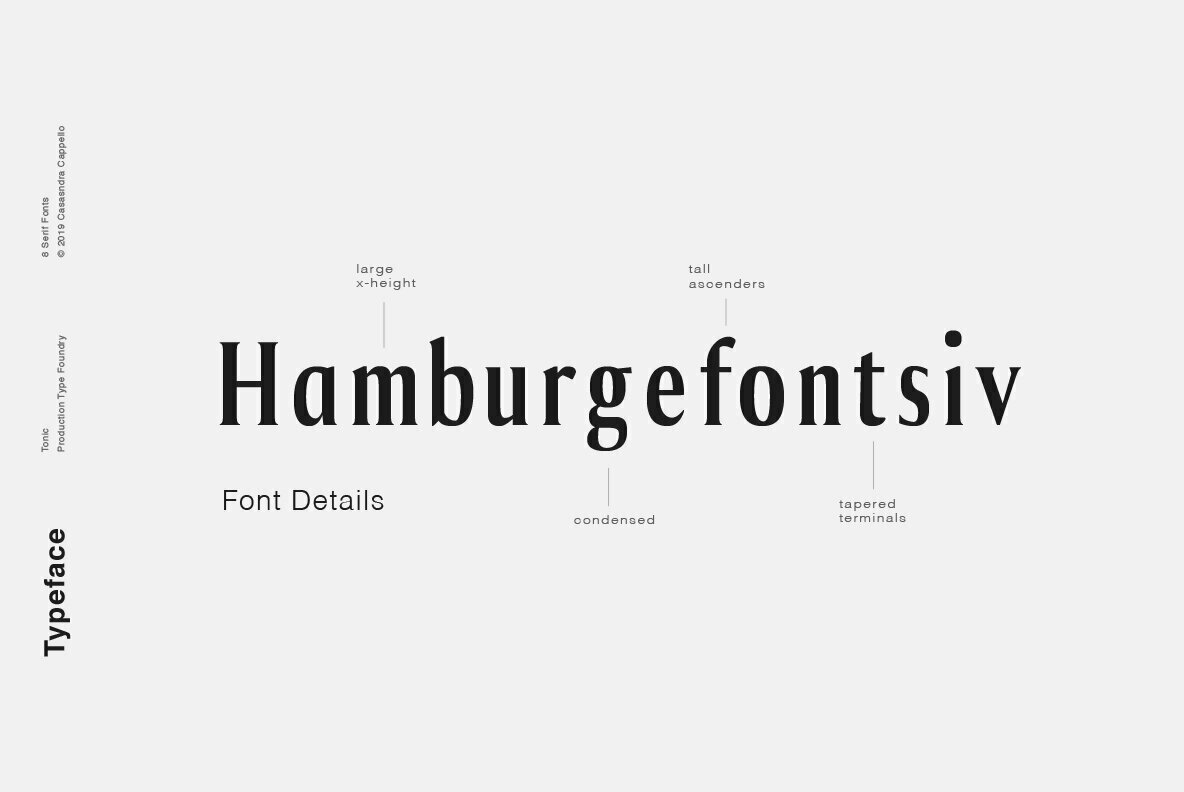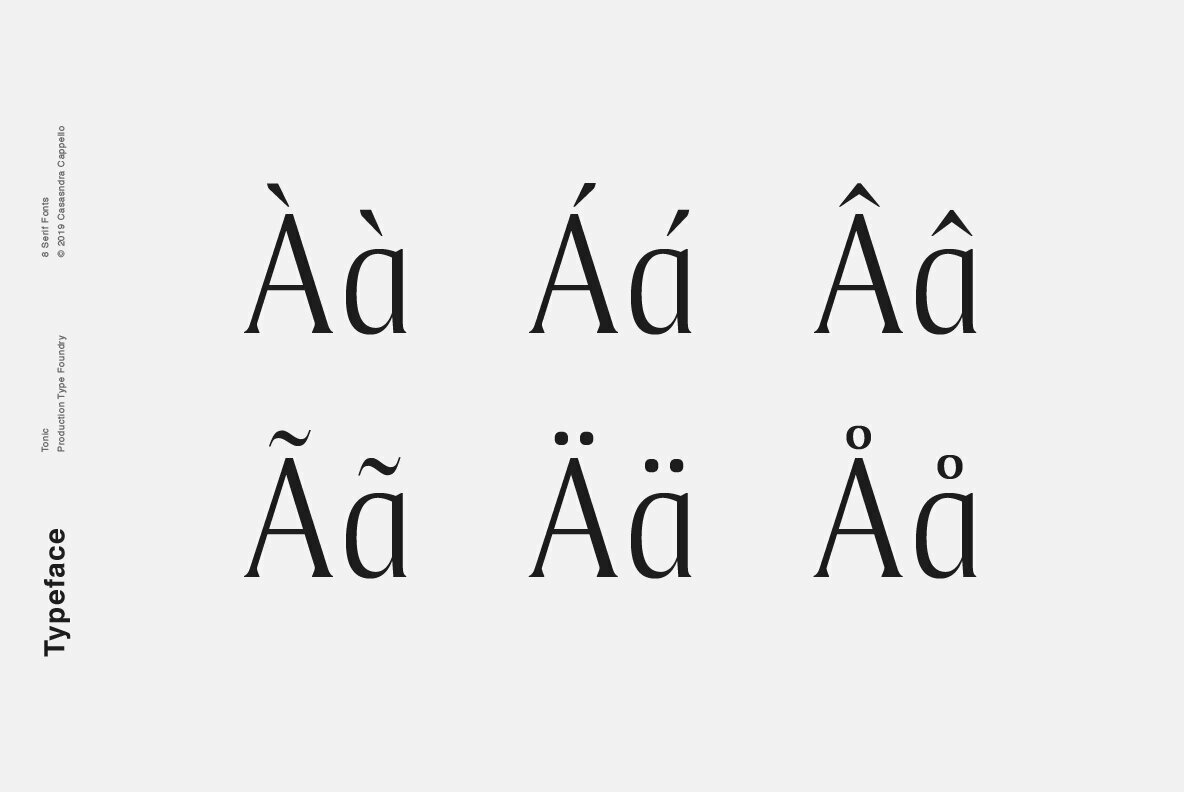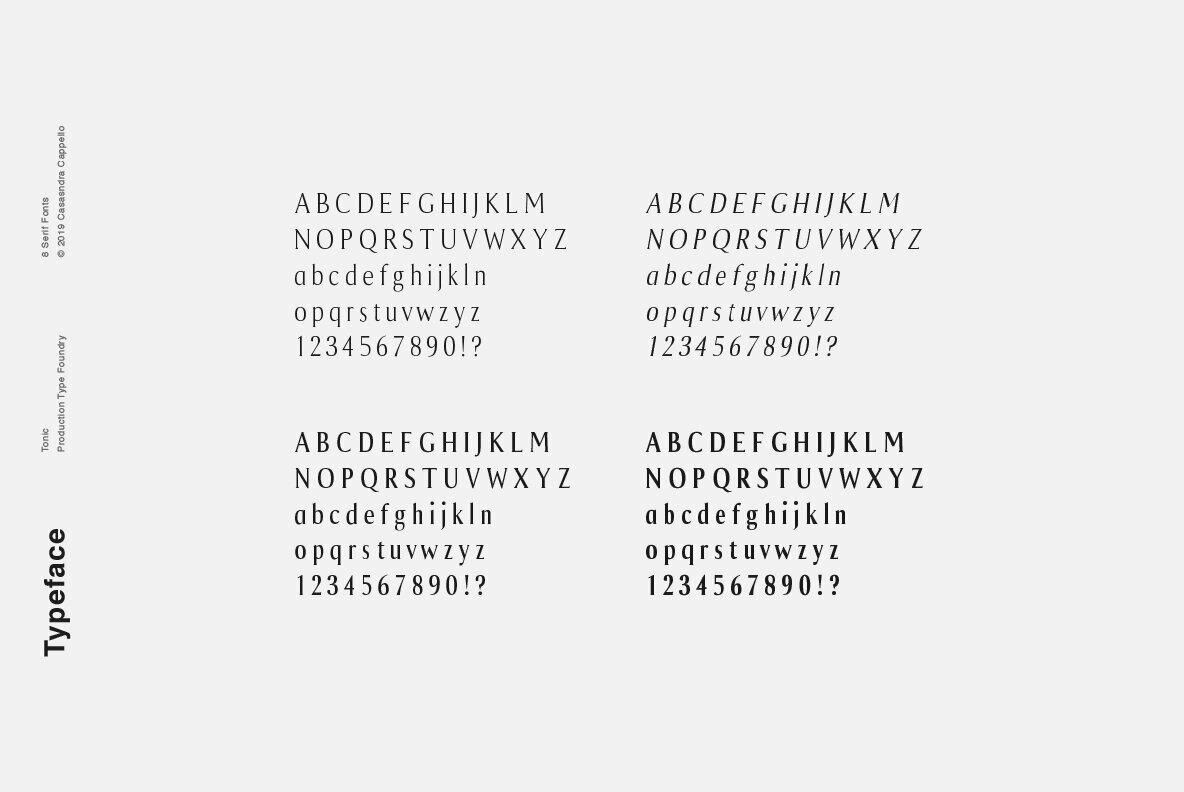
Tonic Font
Tonic is a modern and luxurious serif typeface that makes for a stunning headline. This font family includes all Latin characters (including accents), numbers, special characters, and punctuation.